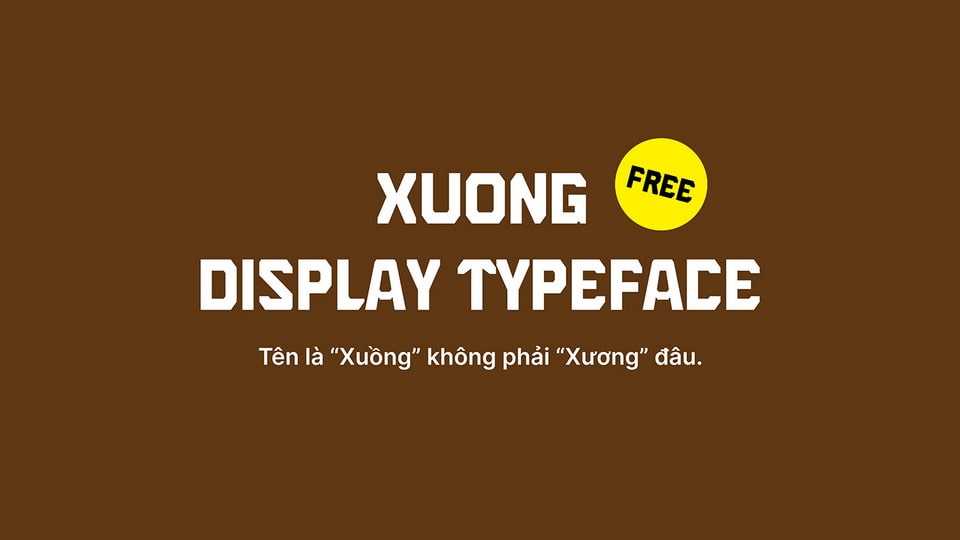
Download TNH Xuong font, a typeface that takes its name and design inspiration from “Xuong Ba La”, one of the means of transportation on rivers of people in the southwestern region of Vietnam.
Designer: Truong Nguyen Huy